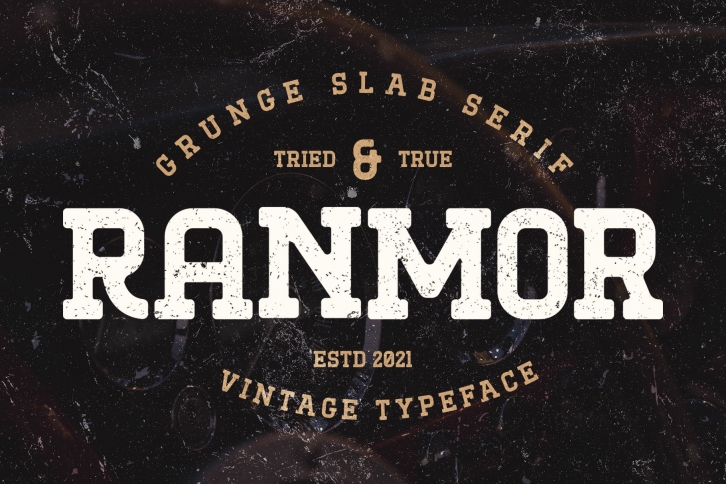
Ranmor is a gorgeous font that was realeased on November 10, 2021. The font can be used in many style contexts and design environments. Perfect for invitations, magazines, websites, logos, and more! It was designed by Arterfak Project and the file size is 15.16 MB. Thanks for checking out this font!